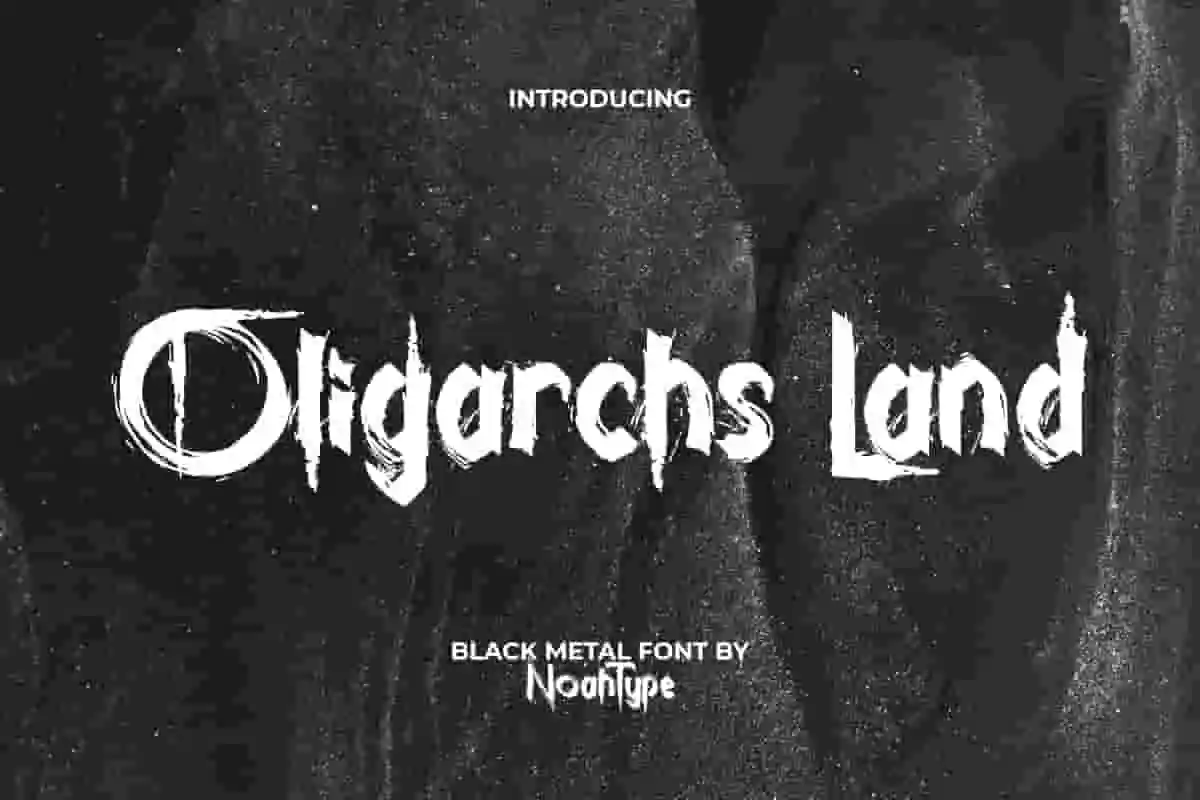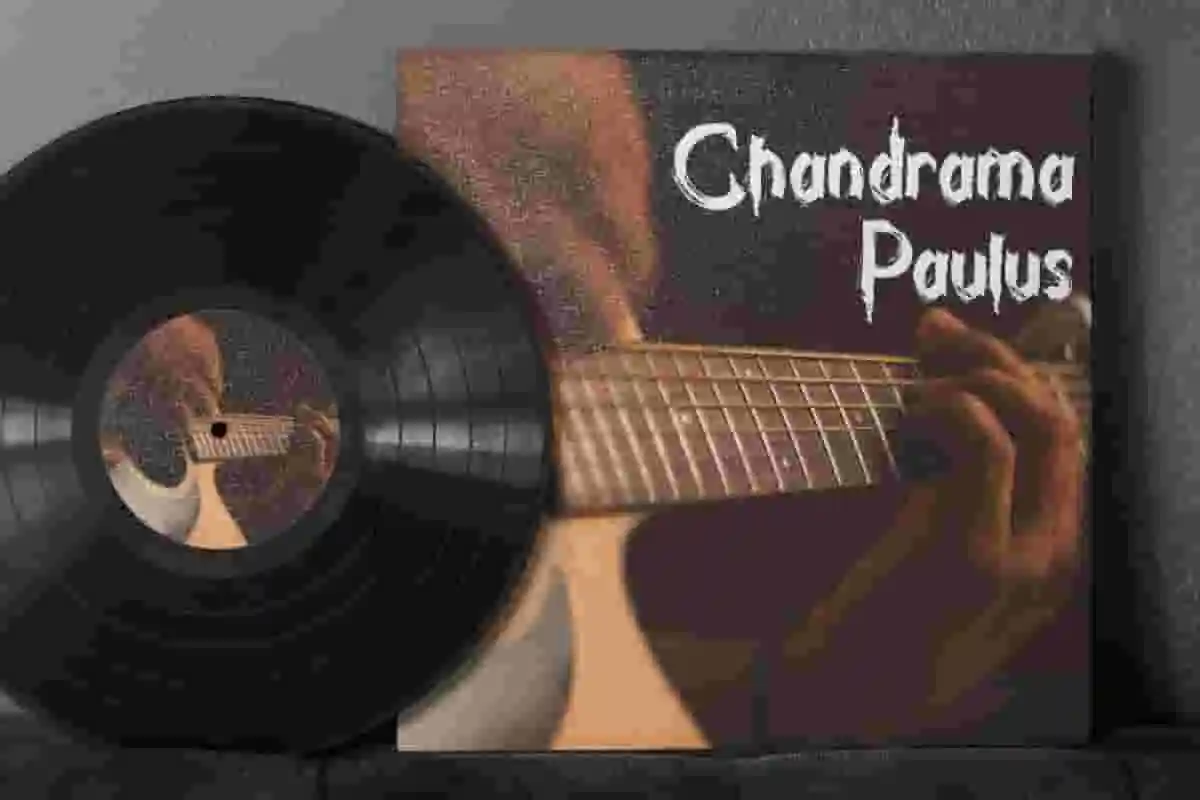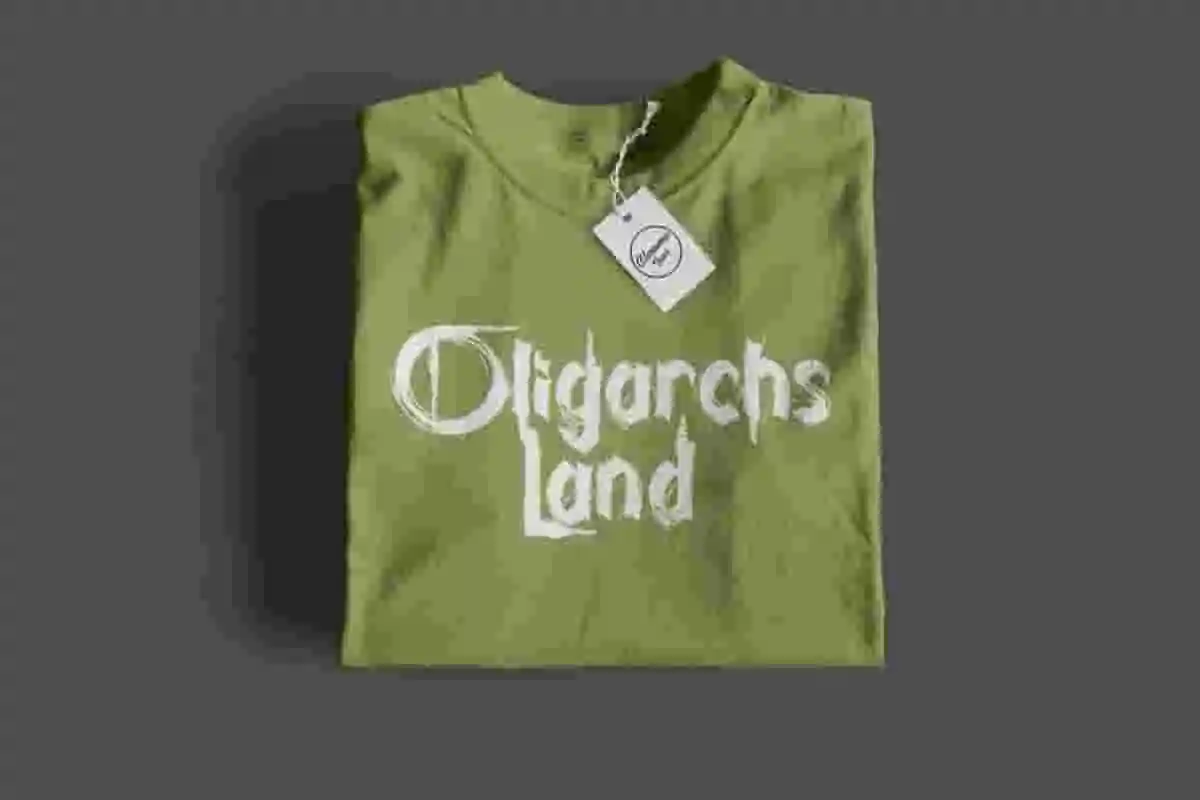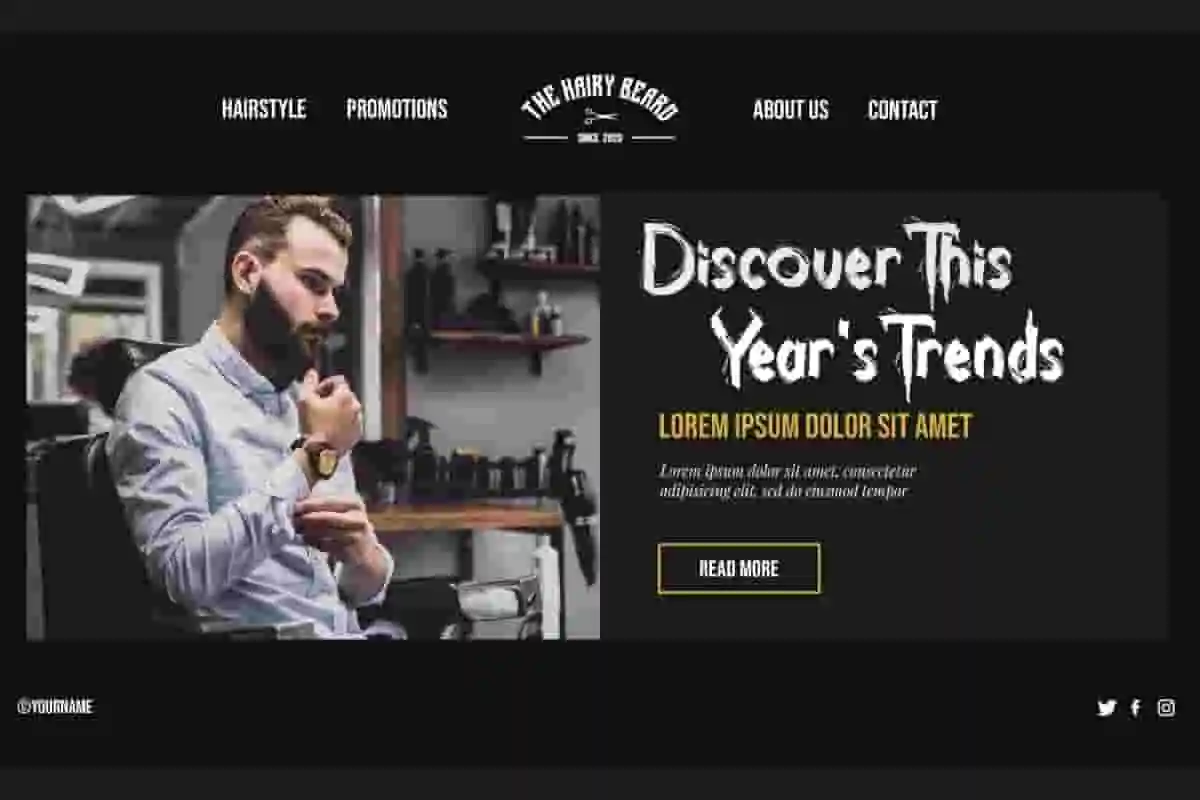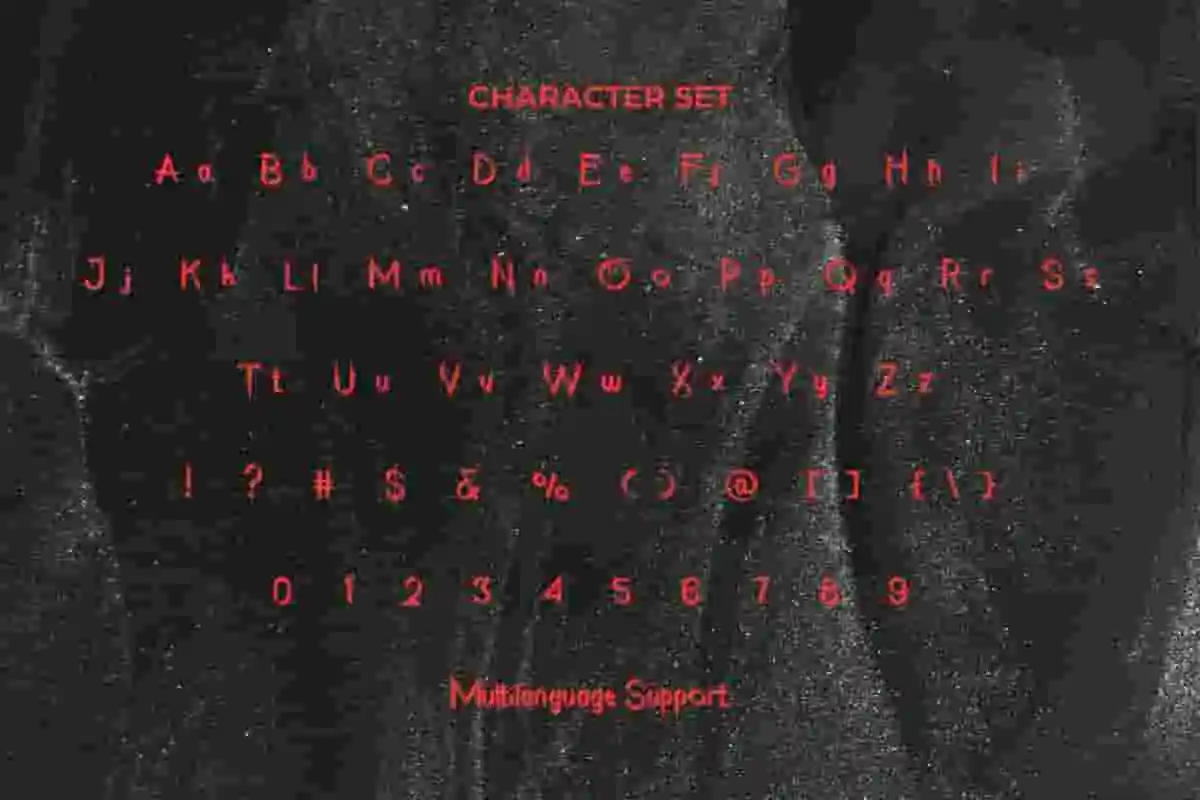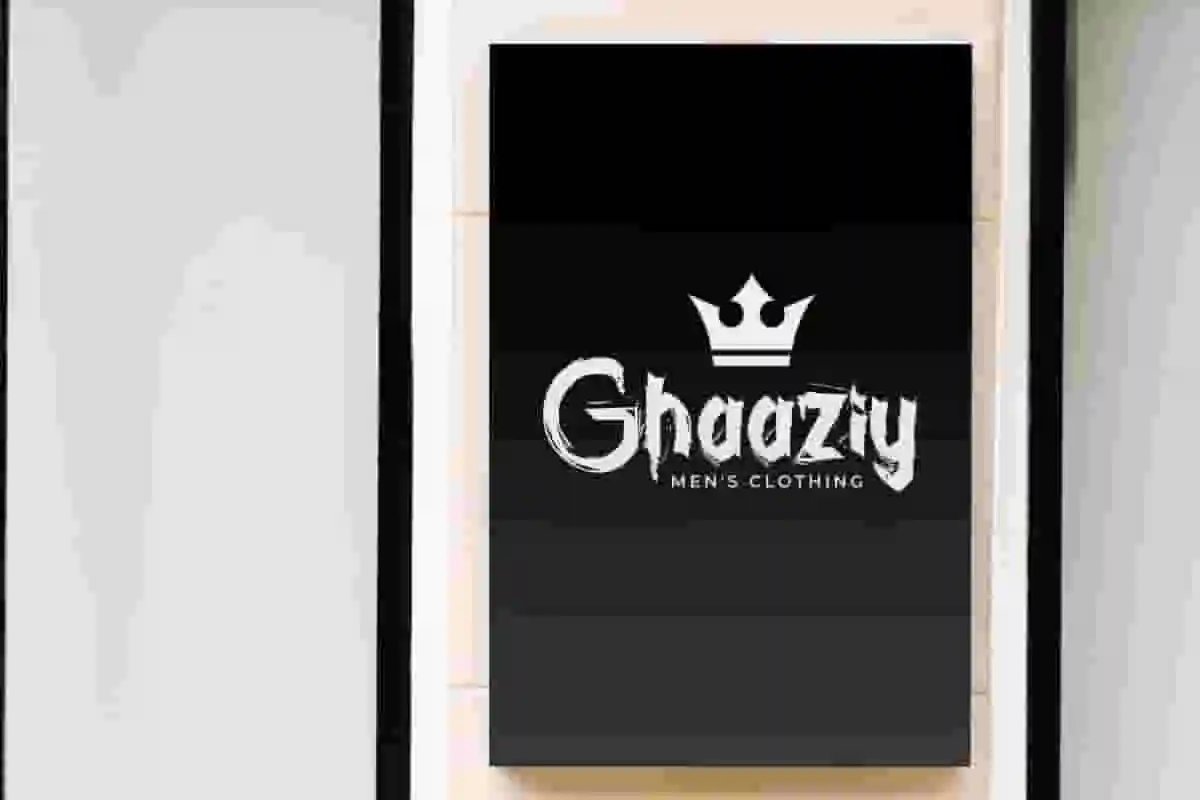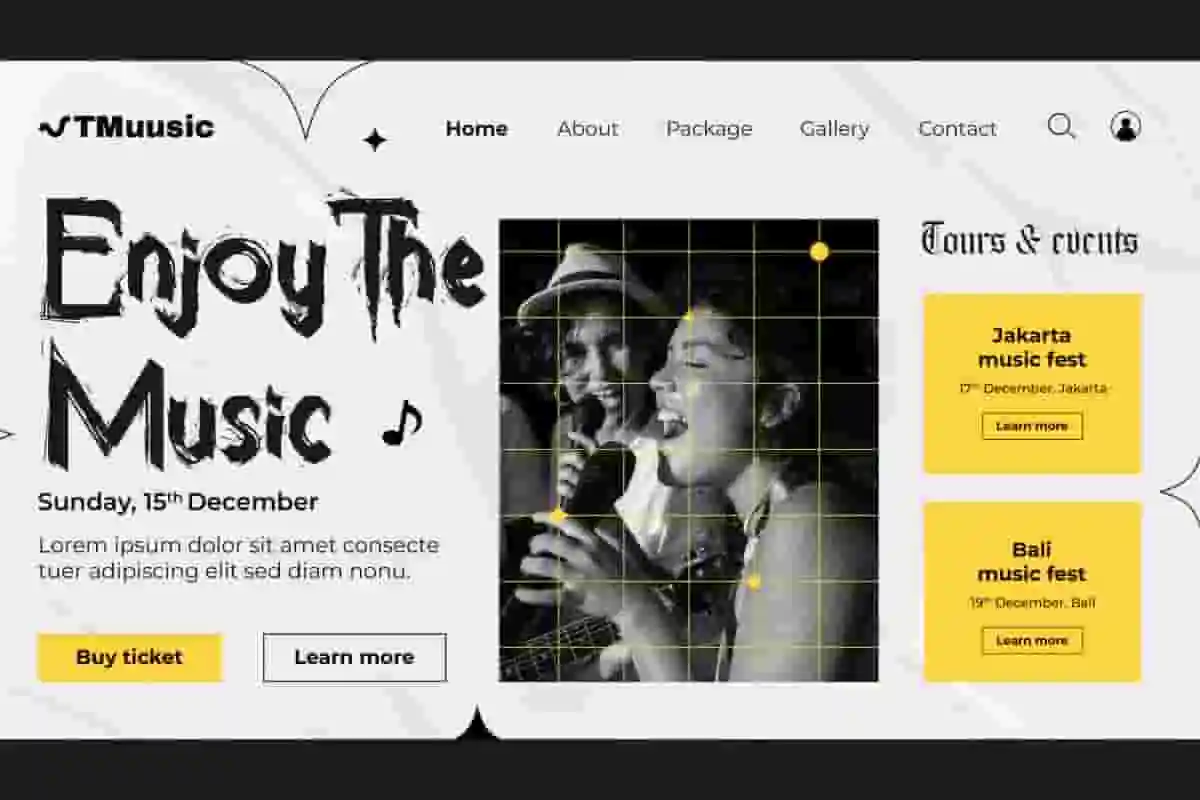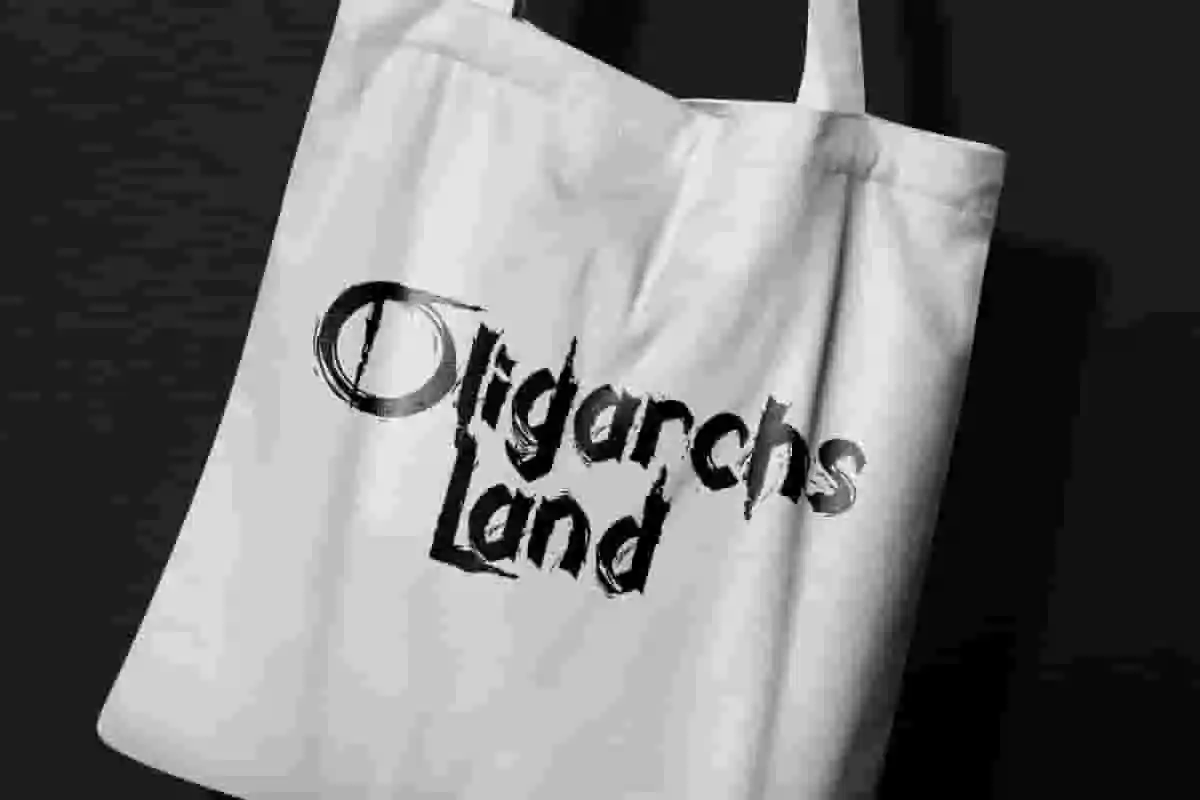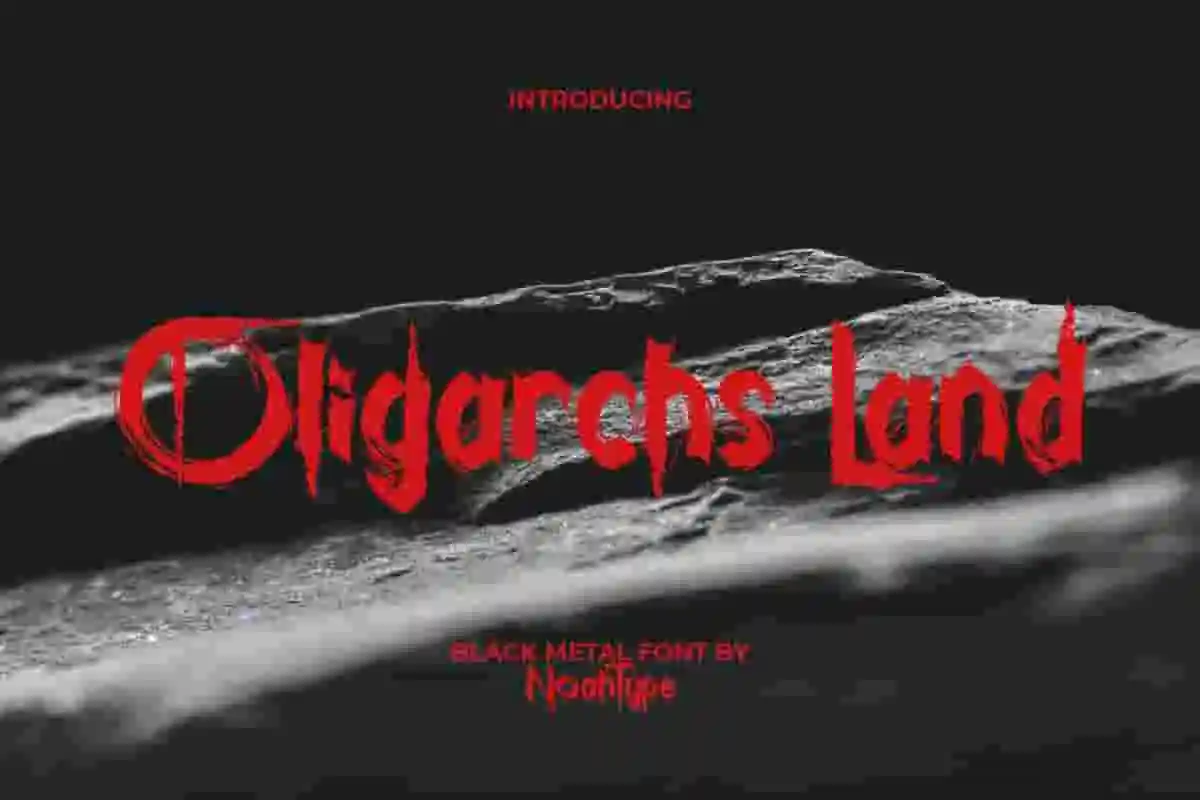
Oligarchs Land Font is a messy black metal font with, created by NoahType. The messy brush strokes on this font make it look even creepier and still readable. It will be perfect for any designs, such as brand image, cover, custom design, invitation, label, marketing material, menu, poster, product packaging, quotes, signage, website, and many more!
Oligarchs Land Font includes full set of Uppercase and Lowercase Basic Characters, Numerals, Punctuation, and Symbol. This font will make your design amazing and also a perfect choice for many industries, such as accessories, advertising, art, café, event or festival, fashion, game, movie, music, printing, publishing, etc.